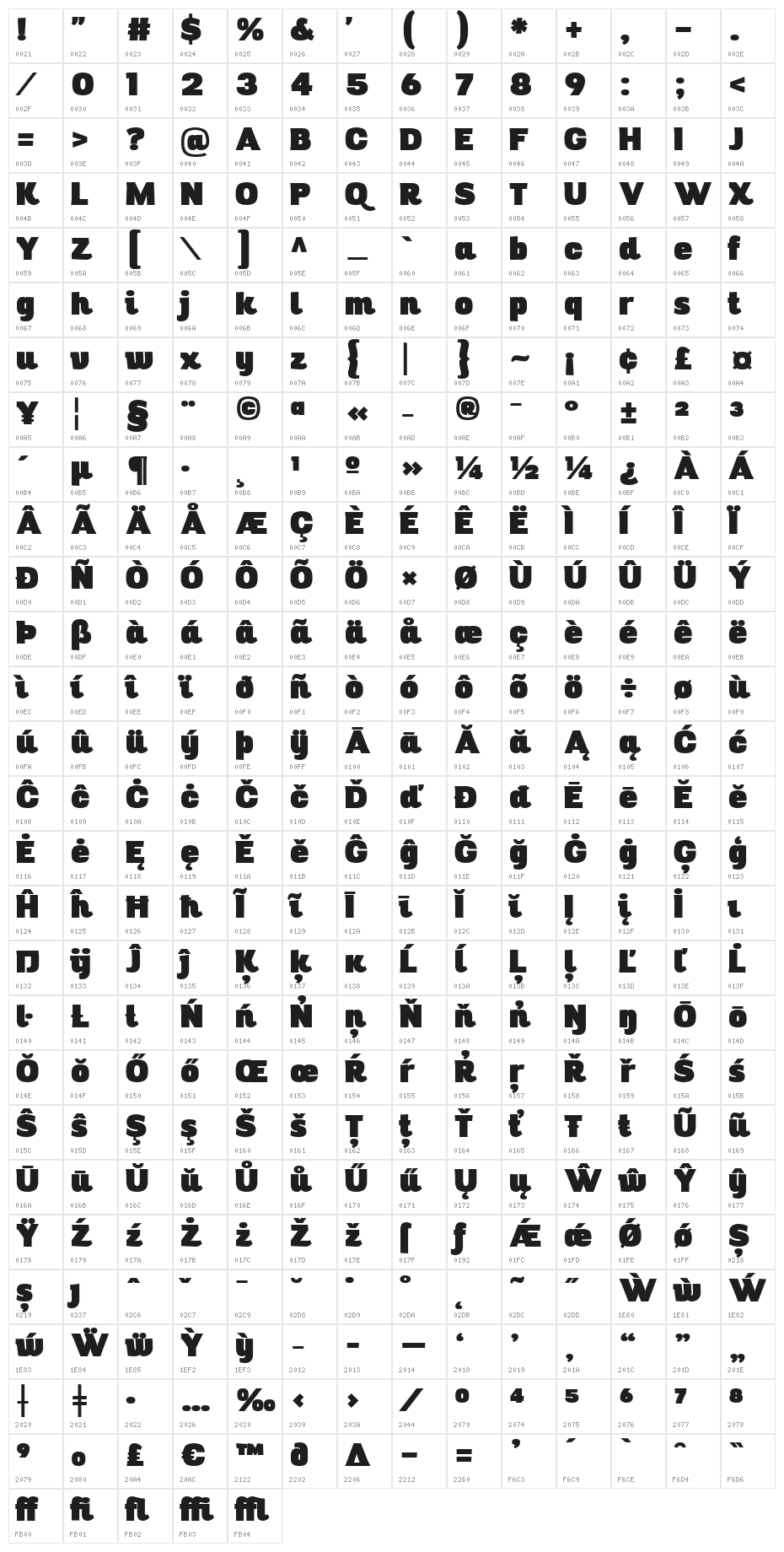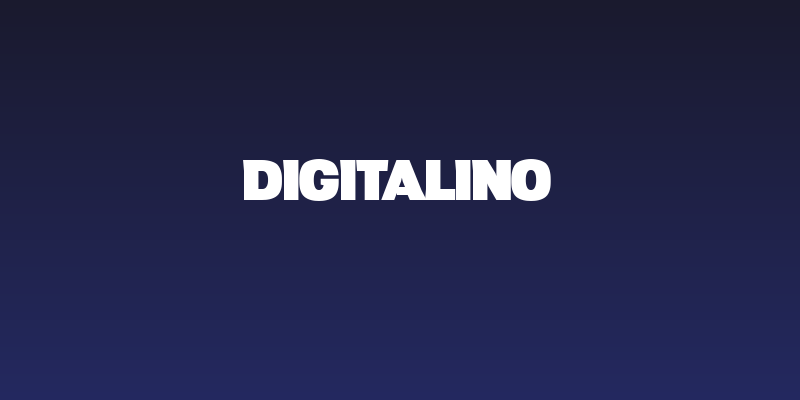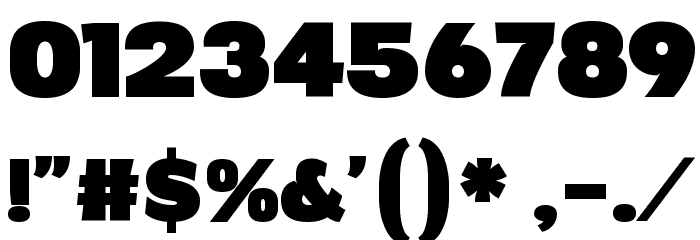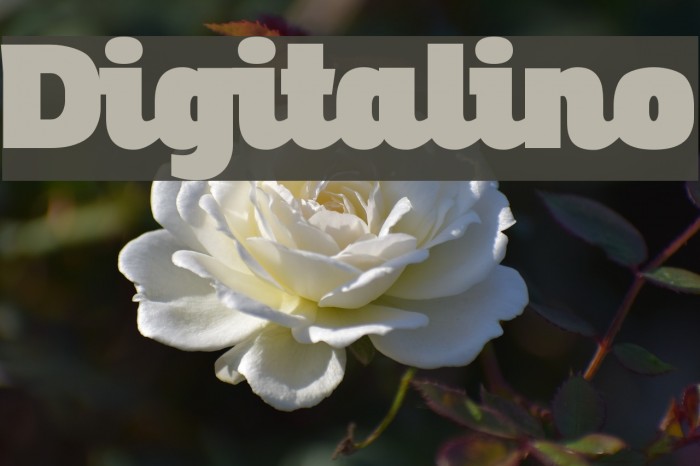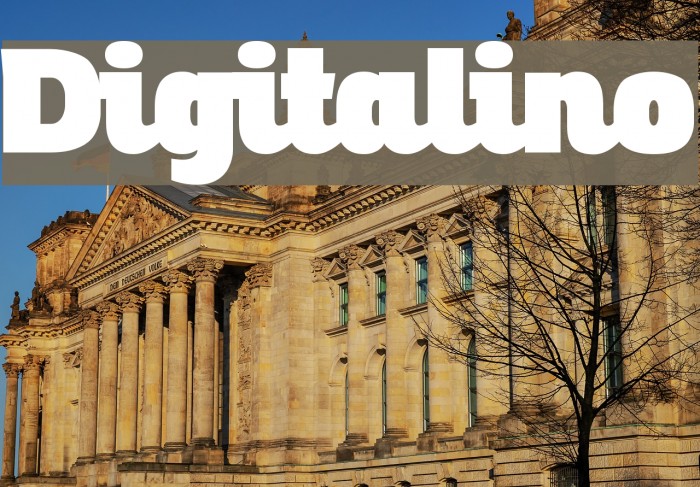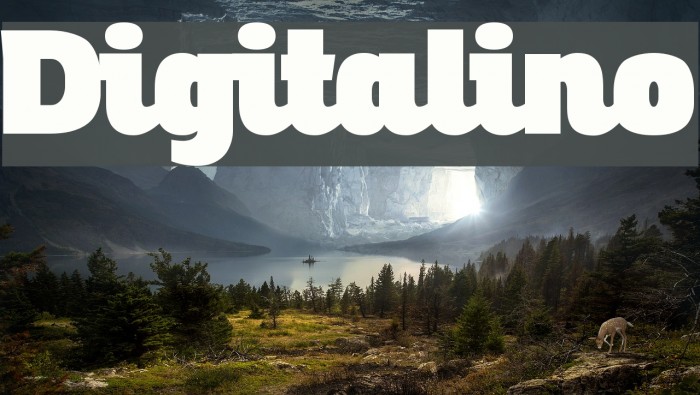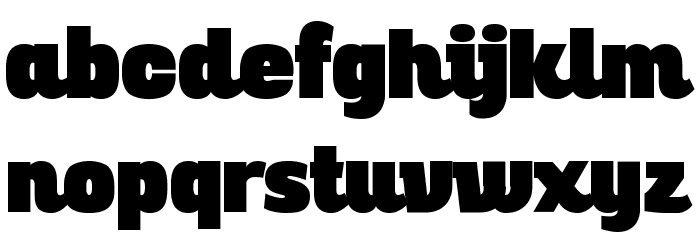
Digitalino Font
Digitalino Description
This font features bold, thick strokes with a strong presence, making it ideal for attention-grabbing designs. The characters are uniformly wide, contributing to a sense of stability and strength. The uppercase letters are particularly prominent, with a block-like appearance that conveys authority and impact. The lowercase letters maintain the same boldness, ensuring consistency across text. Numbers and special characters are equally robust, providing a cohesive look throughout. This font's design is both modern and slightly retro, with a hint of playfulness in its rounded edges.
| Proposed Projects | Ideal for headlines, posters, branding, and any project requiring a strong visual impact. |